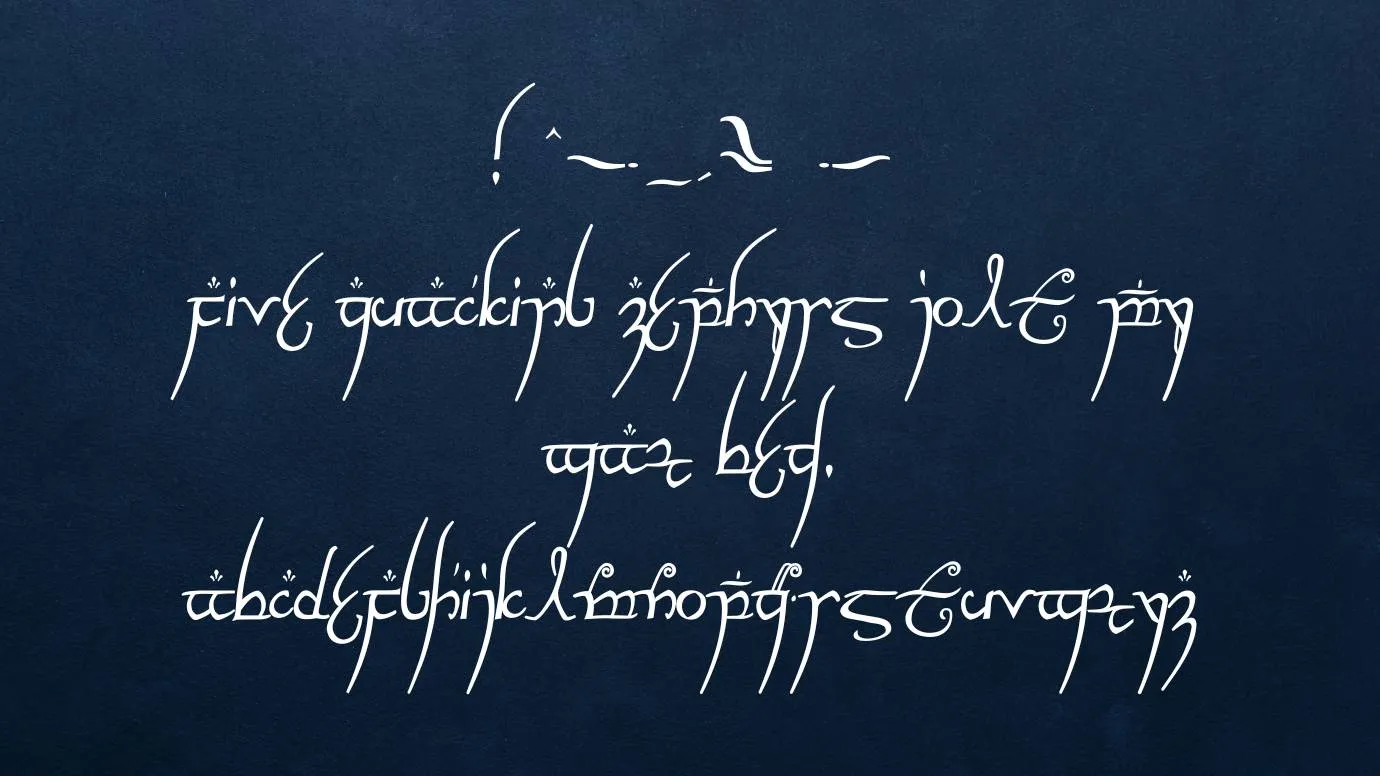
Today we are going to present one of the modern typefaces Elvish Ring Font which is a member of the dingbat’s font family. It has a unique texture and elegant design that can be used in different types of display and printing projects. It comes with small strokes and handwritten typography.
This fancy typeface was designed by one of the talented graphic designers Thomas W. Otto and released by Norfok Incredible Font Design. He is a well-reputed designer who has made many other famous fonts with unique styles and eye-catching textures.
As it has many amazing features but one con about this typeface is that it is hard to read due to its dingbat’s characters. It contains 162 unique characters and 101 distinct glyphs with 1024 units/em that make it more attractive. It has two incredible styles, bold and regular, that can be used in different kinds of projects.
View of Elvish Ring Font
Here is a picture of this modern-style Elvish Ring Font. It has a difficult texture but gives an aesthetic look if you use it in your projects.
The texture of this typeface has been used in different kinds of professional projects. It is more suitable for invitation cards, greeting cards, business cards, designing projects, postal cards, and brochures. It can be used in different kinds of printing projects.
You can use it in web designing and app development projects. It is not well-suited for educational projects like presentations, assignments, notes, official documentation, and certificates. The reason behind this is that it is difficult to read.
In addition, this OpenType font can be used in different sorts of graphic designs, packaging, t-shirt designs, branding, titles, logos, flyers, posters, banners, headings, game graphics, invoices, quotes, wallpapers, and animations.
What is the Elvish Ring Font?
This is one of the modern fonts that come in a dingbats font family. It has a complete set of characters and unique glyphs.
Who designed the Elvish Ring Font?
This fancy typeface was designed by one of the talented graphic designers Thomas W. Otto and released by Norfok Incredible Font Design.